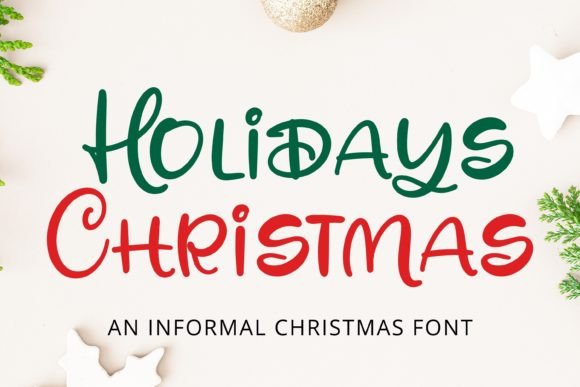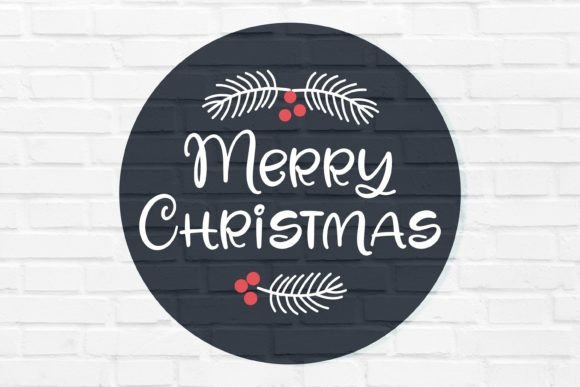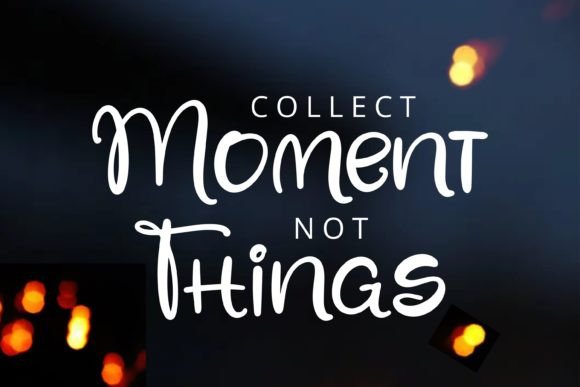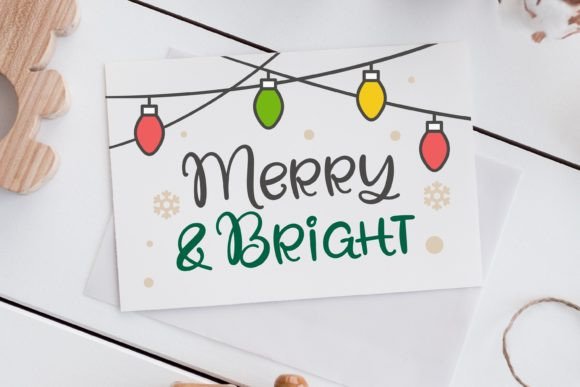
Holidays Christmas Font
About the Holidays Christmas Font
Presenting Holidays Christmas Font, a unique and stylish typeface that will make your work stand out. Holidays Christmas is a cool, friendly, and informal handwritten font that can be used for all chalkboard quotes or teaching material! Its authentic look and feel will add a personal and realistic touch to your designs.
This font excels in projects requiring a friendly, approachable aesthetic. Ideal applications include short headlines, social media graphics, invitations, and packaging for products targeting a younger demographic or emphasizing a handcrafted feel. Avoid using it for large blocks of text or body copy; the informal nature and slight inconsistencies typical of handwritten fonts hinder readability in extended passages.
Holidays Christmas pairs well with clean sans-serif fonts like Open Sans or Lato for a balanced contrast, or with a playful script font such as Pacifico for a more whimsical feel. A geometric sans-serif like Montserrat can add a modern edge while maintaining the overall friendly vibe.
The font’s core personality is best described as cheerful and informal, making it unsuitable for projects demanding elegance or sophistication. Its strength lies in evoking a sense of warmth and approachability.